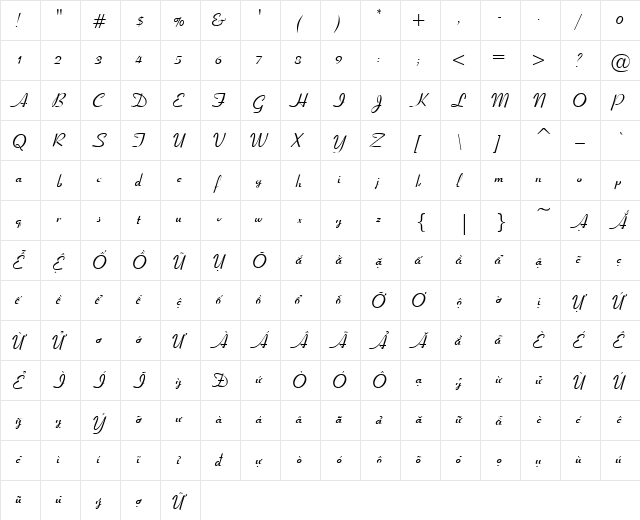
VI Hoang Mai Regular
Design Context for VI Hoang Mai Typeface
VI Hoang Mai is a composed and adaptable typeface that performs quietly and consistently across a wide range of design contexts.